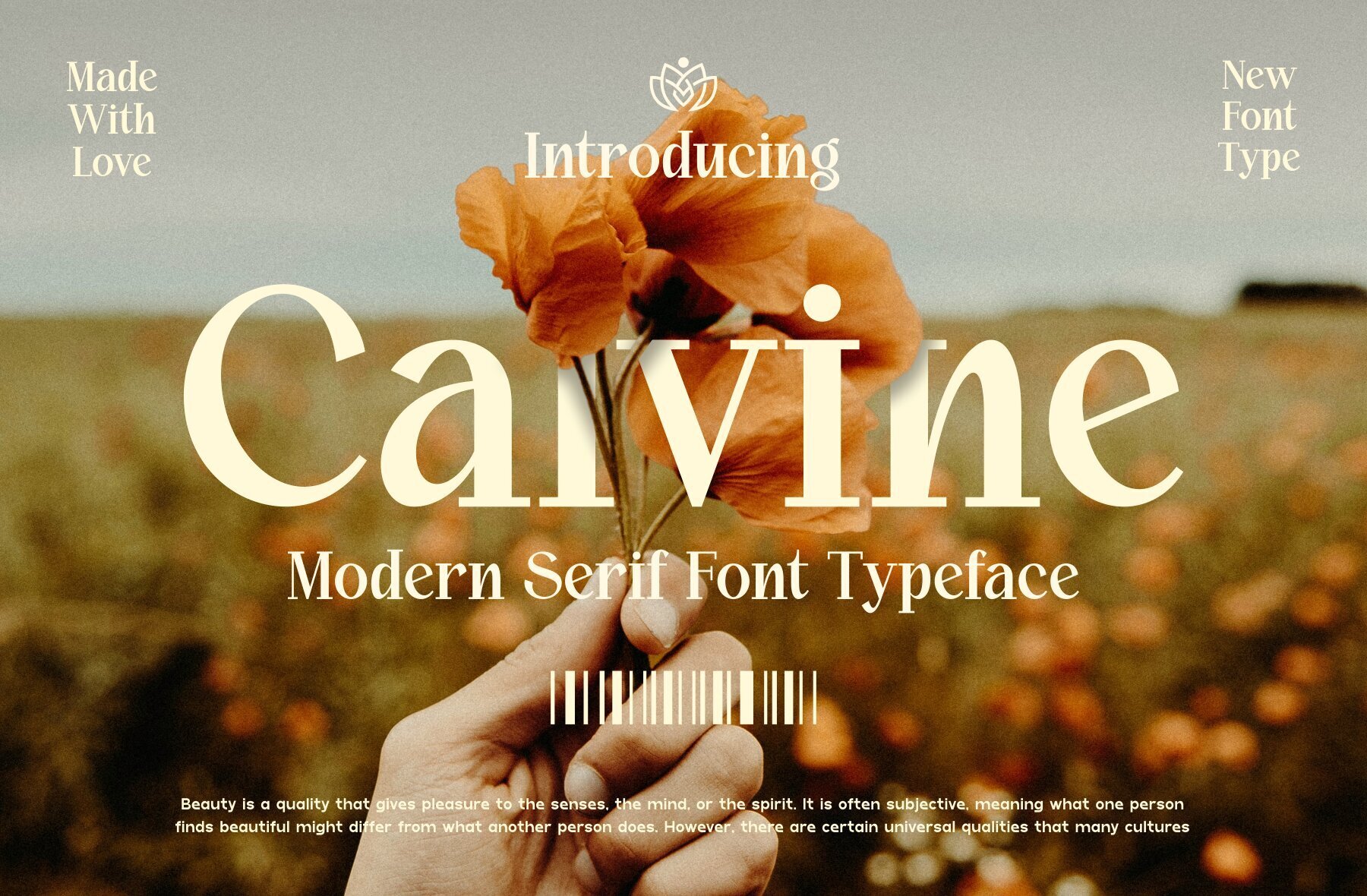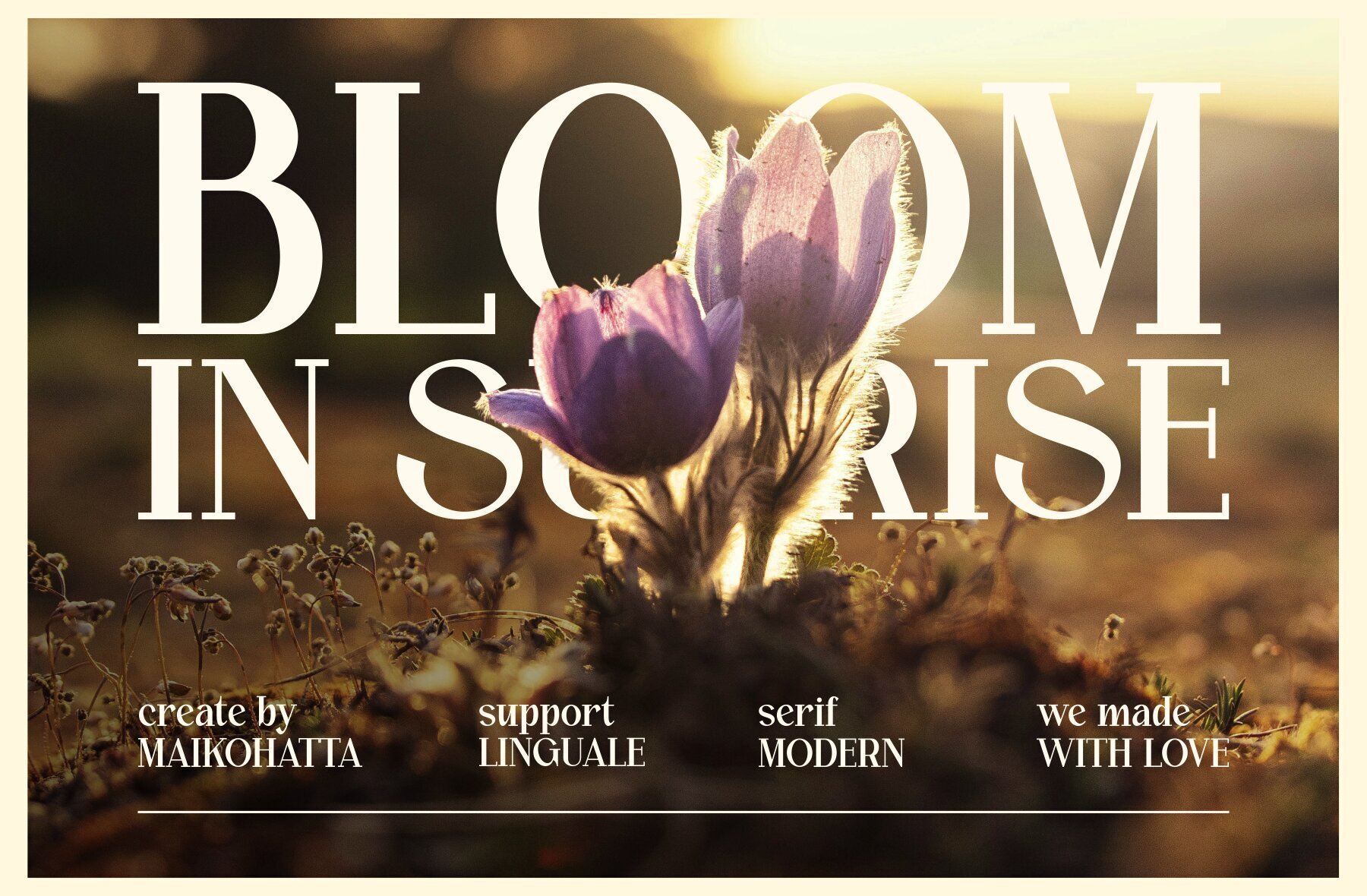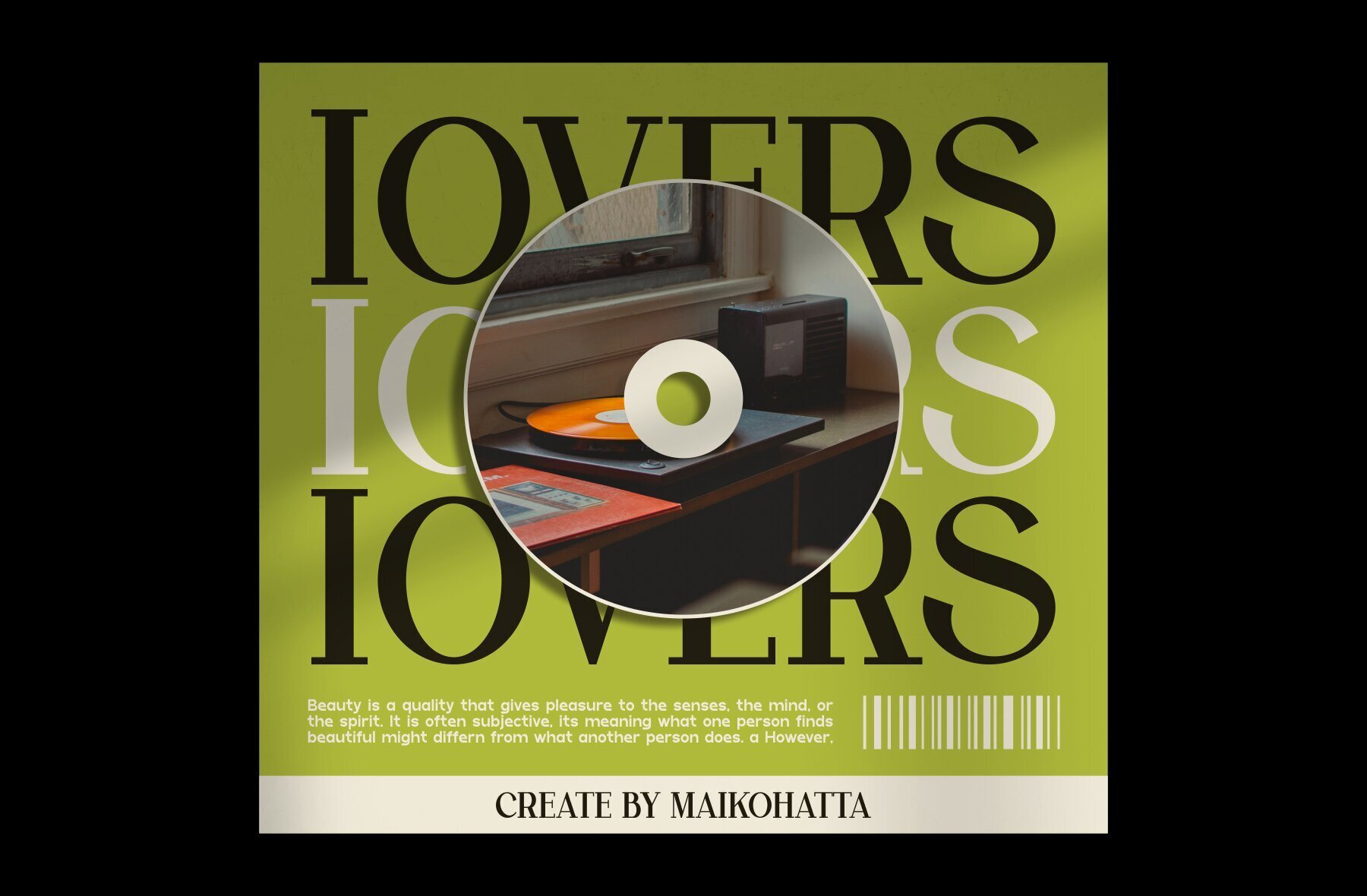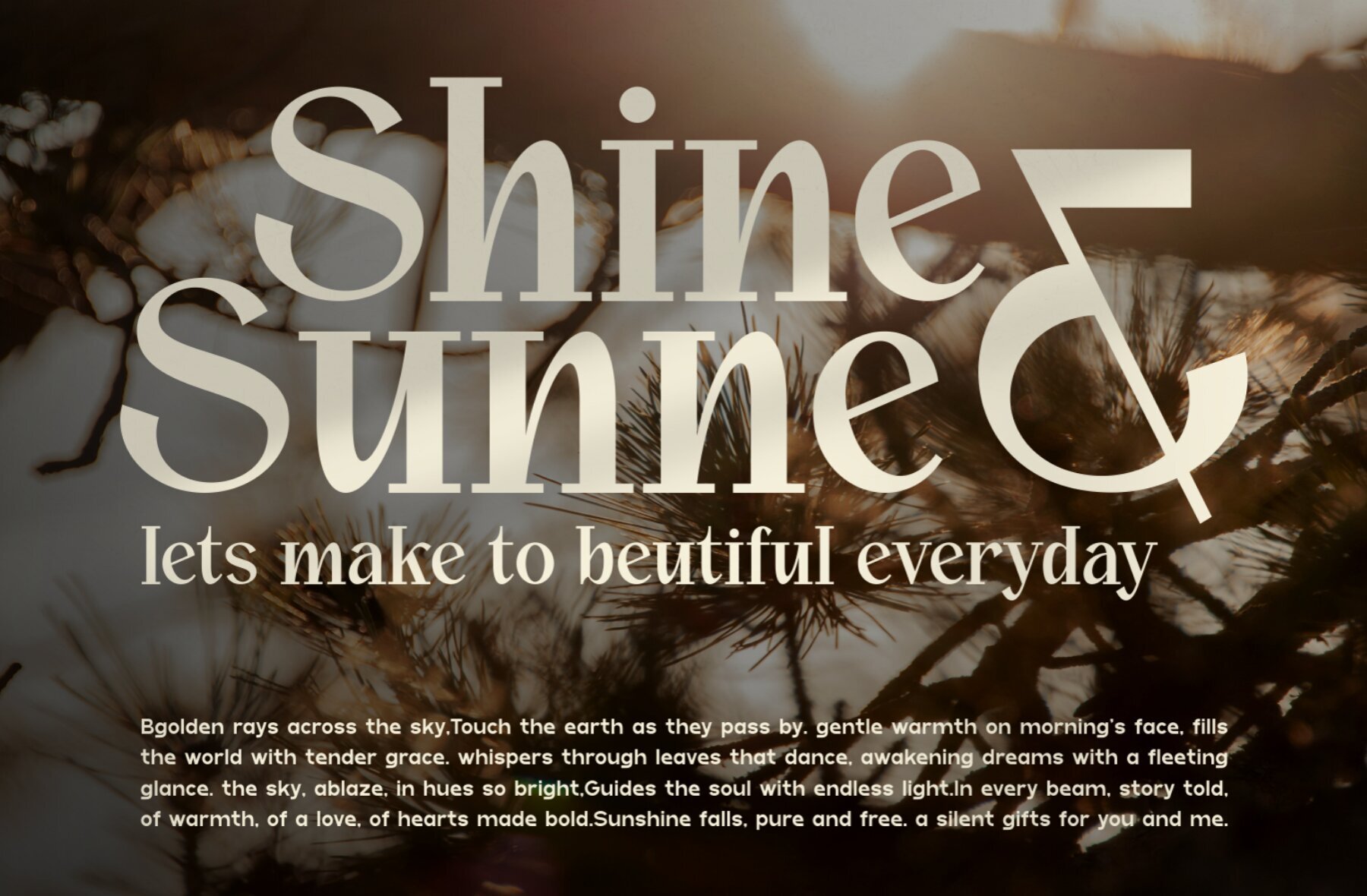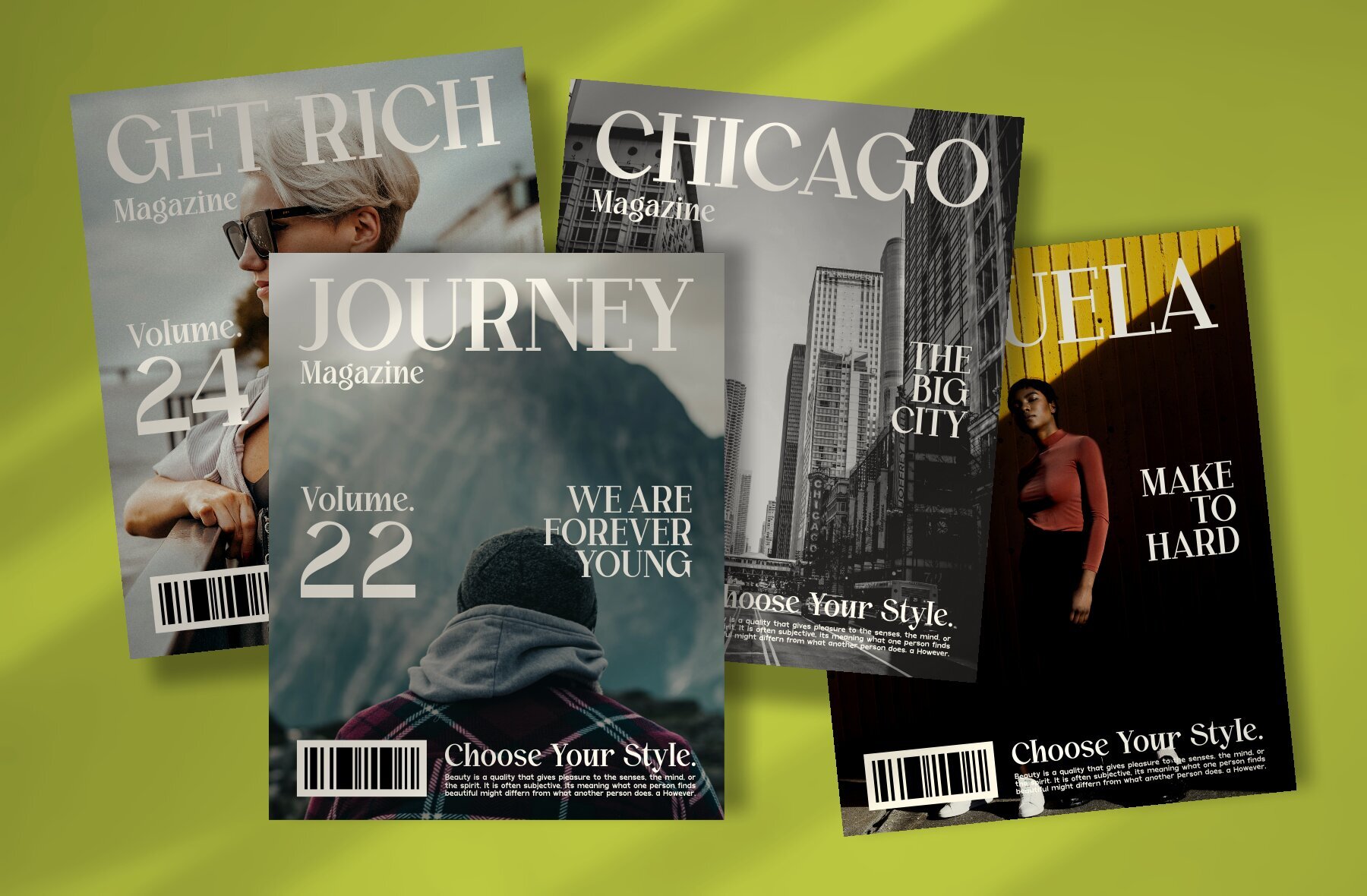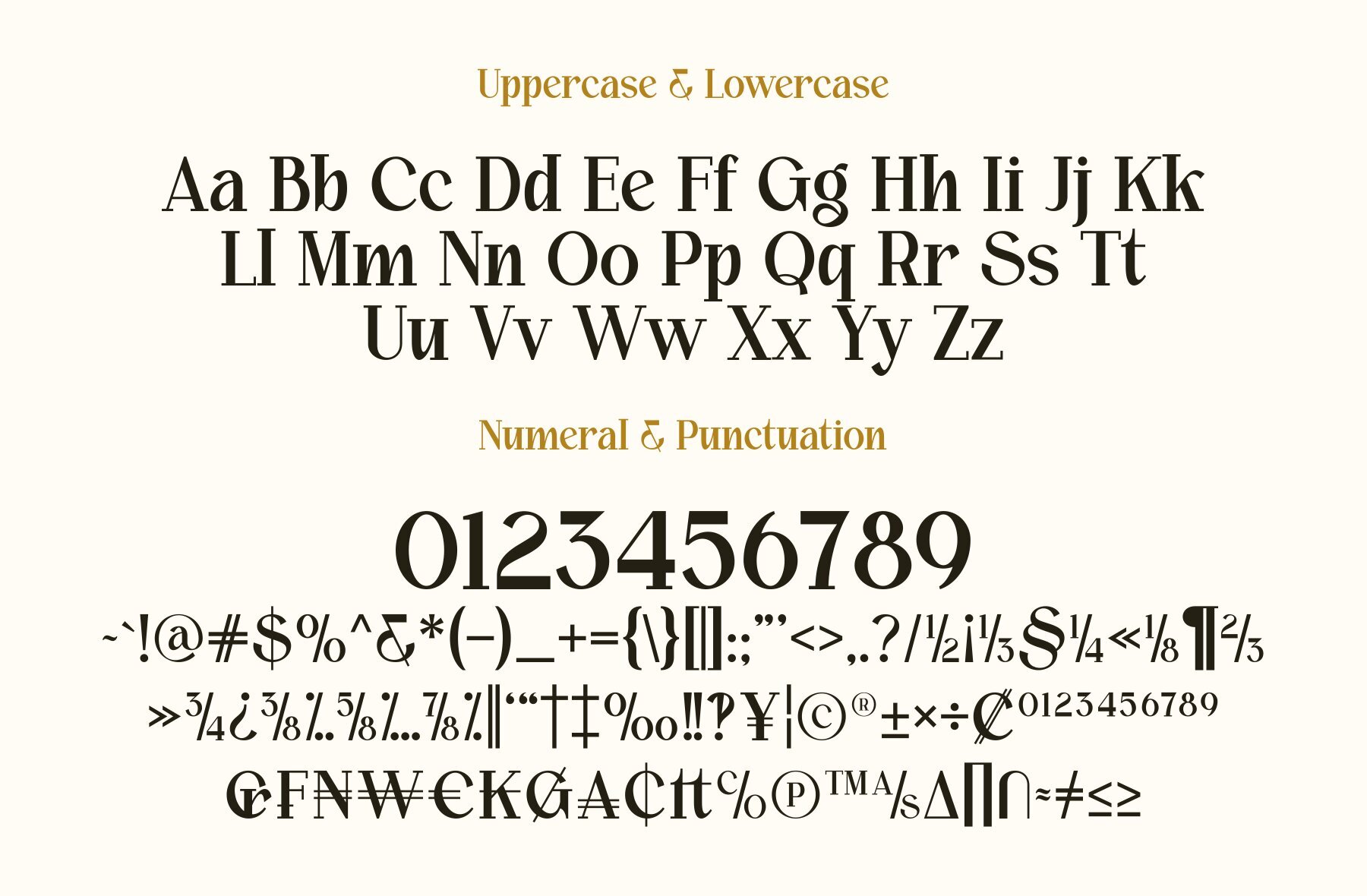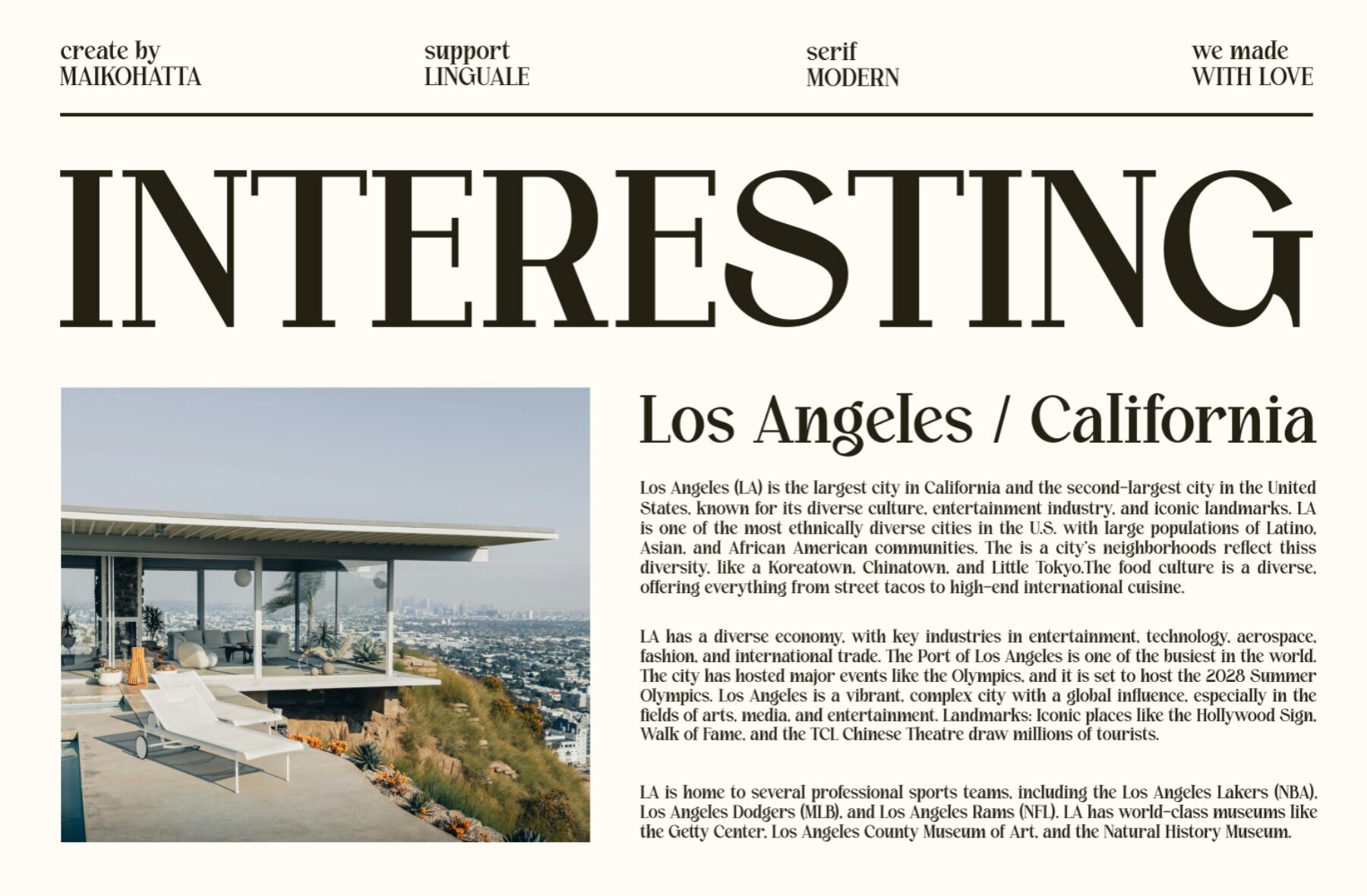
Calvine Font
Calvine Regular
Calvine is a modern serif typeface featuring a balanced proportion of stroke thickness and fineness. Its design ensures attractive and easy-to-read visuals, making it ideal for a wide range of design projects. The bold distinction between thick and thin lines adds a touch of sophistication while maintaining clarity and legibility.
This contemporary serif font stands out with its understated elegance. Perfect for branding, editorial design, and web typography, Calvine provides versatility and style to enhance your creative work. Whether used for headlines, body text, or digital media, this typeface blends modern aesthetics with timeless appeal.